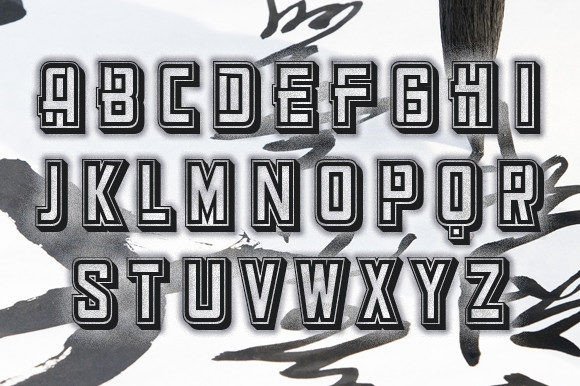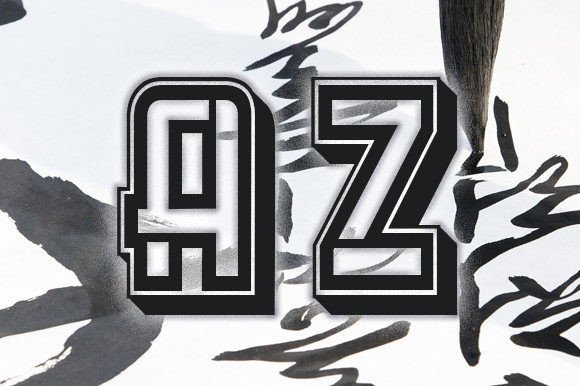
Introducing Chinois Font: Elevate Your Designs with Stylish 3D Typography
Are you tired of using the same old fonts in your designs? Look no further! Chinois Font is here to revolutionize your creative projects with its stylish 3D typography. This versatile font is perfect for designers and crafters who want to add a touch of sophistication and whimsy to their work. In this article, we’ll explore the features and benefits of Chinois Font, and show you how to make the most of this amazing resource.
What is Chinois Font?
Chinois Font is a modern 3D font that is designed to add a pop of personality to your designs. Its sleek and stylish appearance makes it perfect for a wide range of applications, from posters and brochures to flyers and web designs. With Chinois Font, you can create stunning visual effects that will capture the attention of your audience and leave a lasting impression.
Key Features of Chinois Font
- Stylish 3D Typography: Chinois Font boasts a unique 3D design that adds depth and dimension to your text.
- Versatile: Use Chinois Font on a variety of materials, including posters, brochures, flyers, web designs, and more.
- Easy to Use: Chinois Font is compatible with most design software, making it easy to integrate into your workflow.
- High-Quality: Chinois Font is designed with high-quality graphics, ensuring that your designs look professional and polished.
Benefits of Using Chinois Font
So why choose Chinois Font for your designs? Here are just a few benefits of using this amazing font:
- Add Visual Interest: Chinois Font’s 3D design adds a level of visual interest to your text, making it more engaging and attention-grabbing.
- Stand Out from the Crowd: With Chinois Font, you can create designs that stand out from the crowd and leave a lasting impression on your audience.
- Enhance Your Brand: Use Chinois Font to add a touch of sophistication and personality to your brand, helping to establish your identity and build recognition.
How to Use Chinois Font
Using Chinois Font is easy! Here are a few tips to get you started:
- Choose the Right Size: Experiment with different font sizes to find the perfect balance for your design.
- Play with Colors: Try out different colors and color combinations to find the one that works best for your design.
- Experiment with Effects: Don’t be afraid to try out different effects, such as shadows and highlights, to add depth and dimension to your text.
Need some inspiration for your designs? Here are a few ideas to get you started:
- Posters: Use Chinois Font to create eye-catching posters for events, promotions, or advertising campaigns.
- Brochures: Add a touch of sophistication to your brochures with Chinois Font’s stylish 3D typography.
- Flyers: Create stunning flyers that grab attention and drive results with Chinois Font.
- Web Designs: Use Chinois Font to add a pop of personality to your website’s typography and create a lasting impression on your visitors.
In conclusion, Chinois Font is a versatile and stylish 3D font that can elevate your designs and add a touch of sophistication and whimsy. With its ease of use, high-quality graphics, and range of applications, Chinois Font is perfect for designers and crafters who want to take their work to the next level. So why wait? Download Chinois Font today and start creating stunning designs that capture attention and leave a lasting impression!